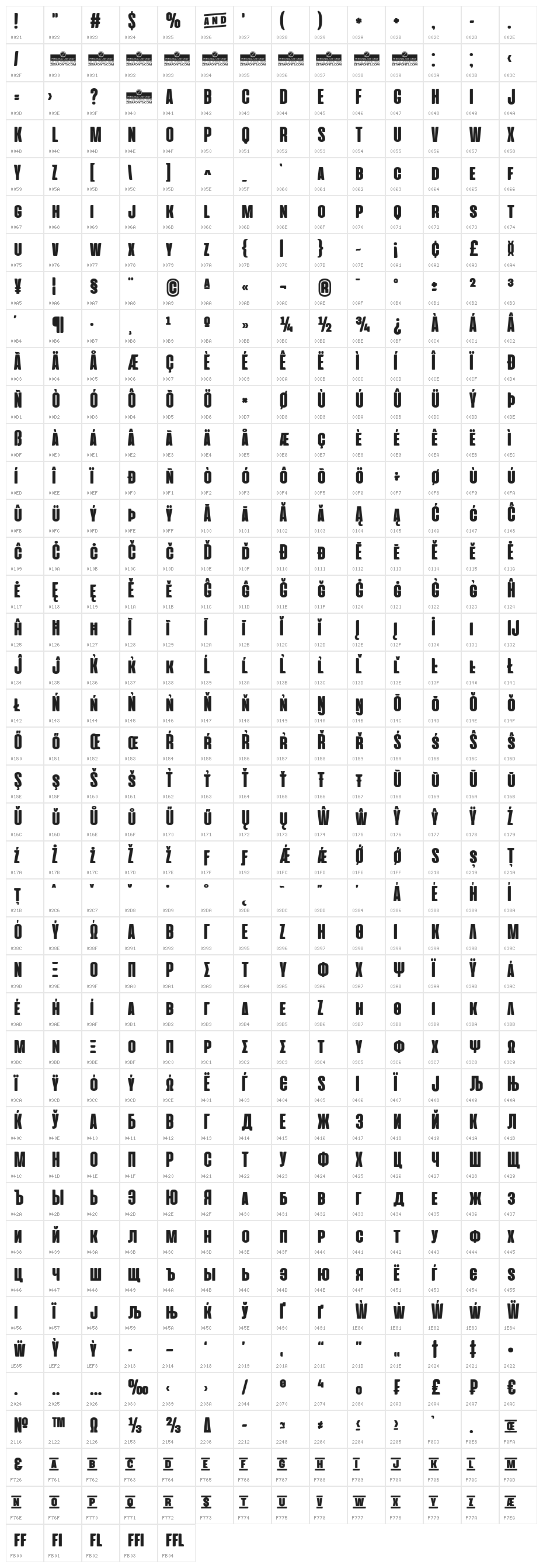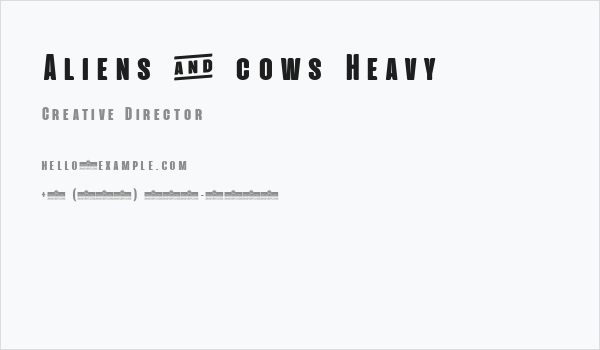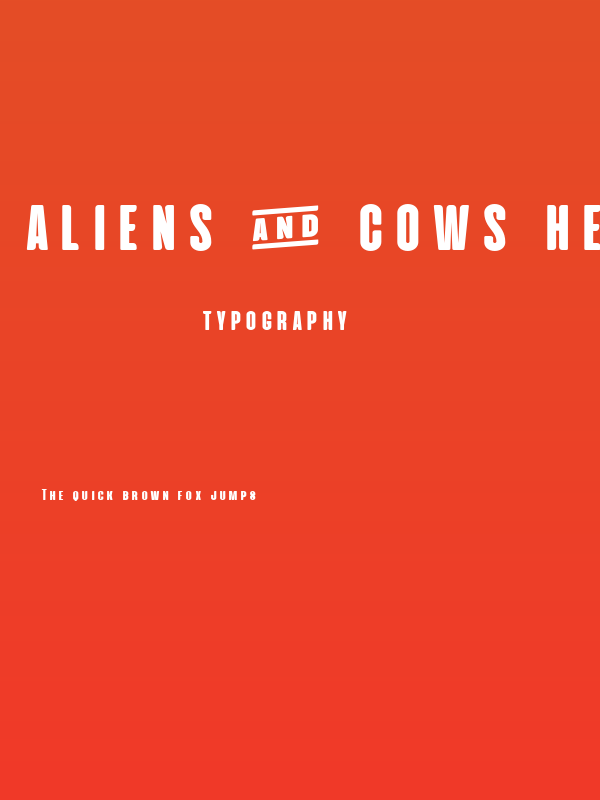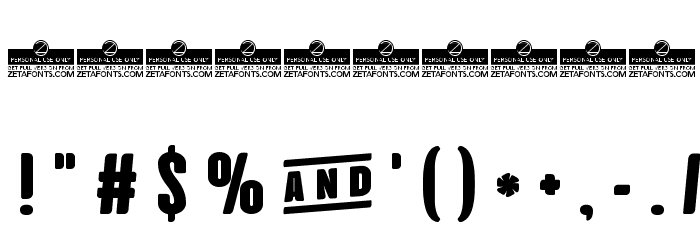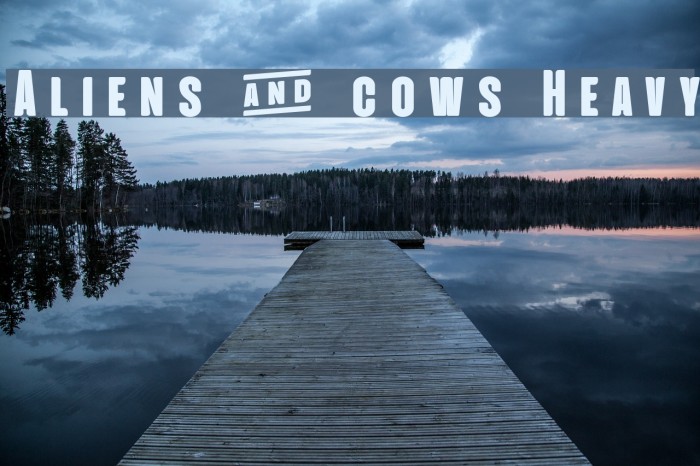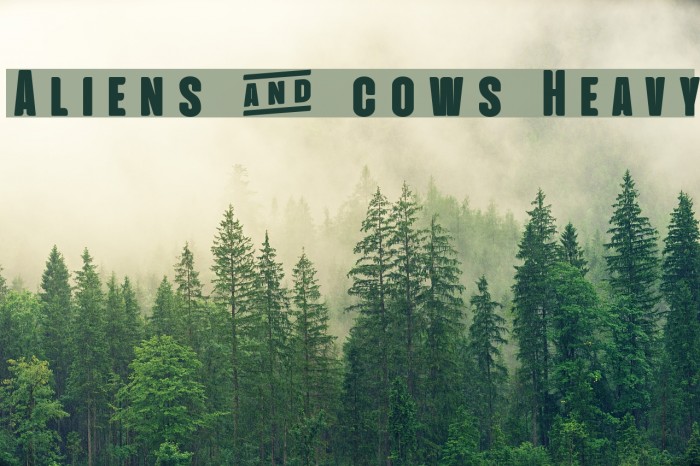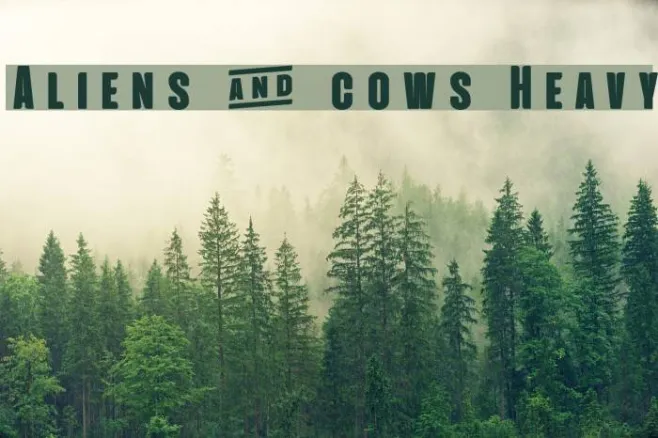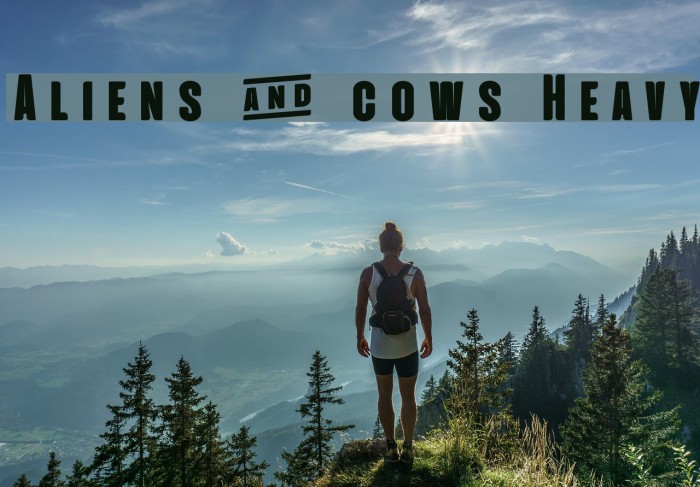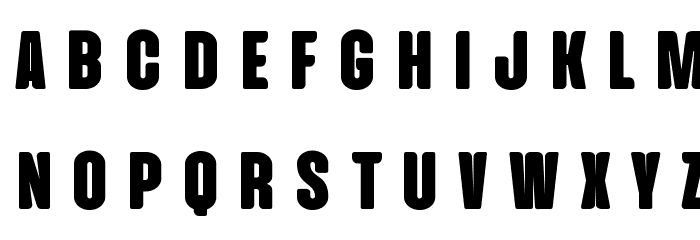
Aliens & cows Heavy Font
Aliens & cows Heavy Description
This font exhibits a bold and impactful style with strong, thick strokes that convey a sense of power and authority. The characters are uniformly wide, with a slightly condensed appearance that enhances readability while maintaining a robust presence. The uppercase letters are particularly striking, with a consistent height and width that ensures visual harmony. The lowercase letters mirror the uppercase in style, offering a cohesive look across different text cases. The numerals are clear and legible, matching the boldness of the alphabetic characters. Special characters are well-defined, adding versatility to the font's usage. Overall, this font is designed to make a statement, suitable for projects that require a strong visual impact.
| Proposed Projects | Ideal for headlines, posters, branding, and any design that requires a strong visual impact. |